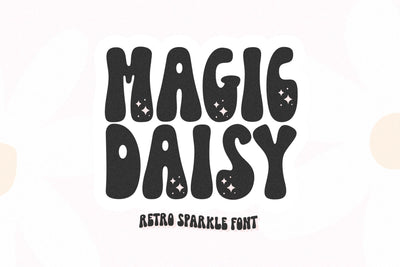
Magic Daisy - Retro Sparkle Font
Magic Daisy is a hand-drawn retro font with sparkle!
This is an ALL CAPS font
Lowercase = plain letters
Capital = sparkle letters